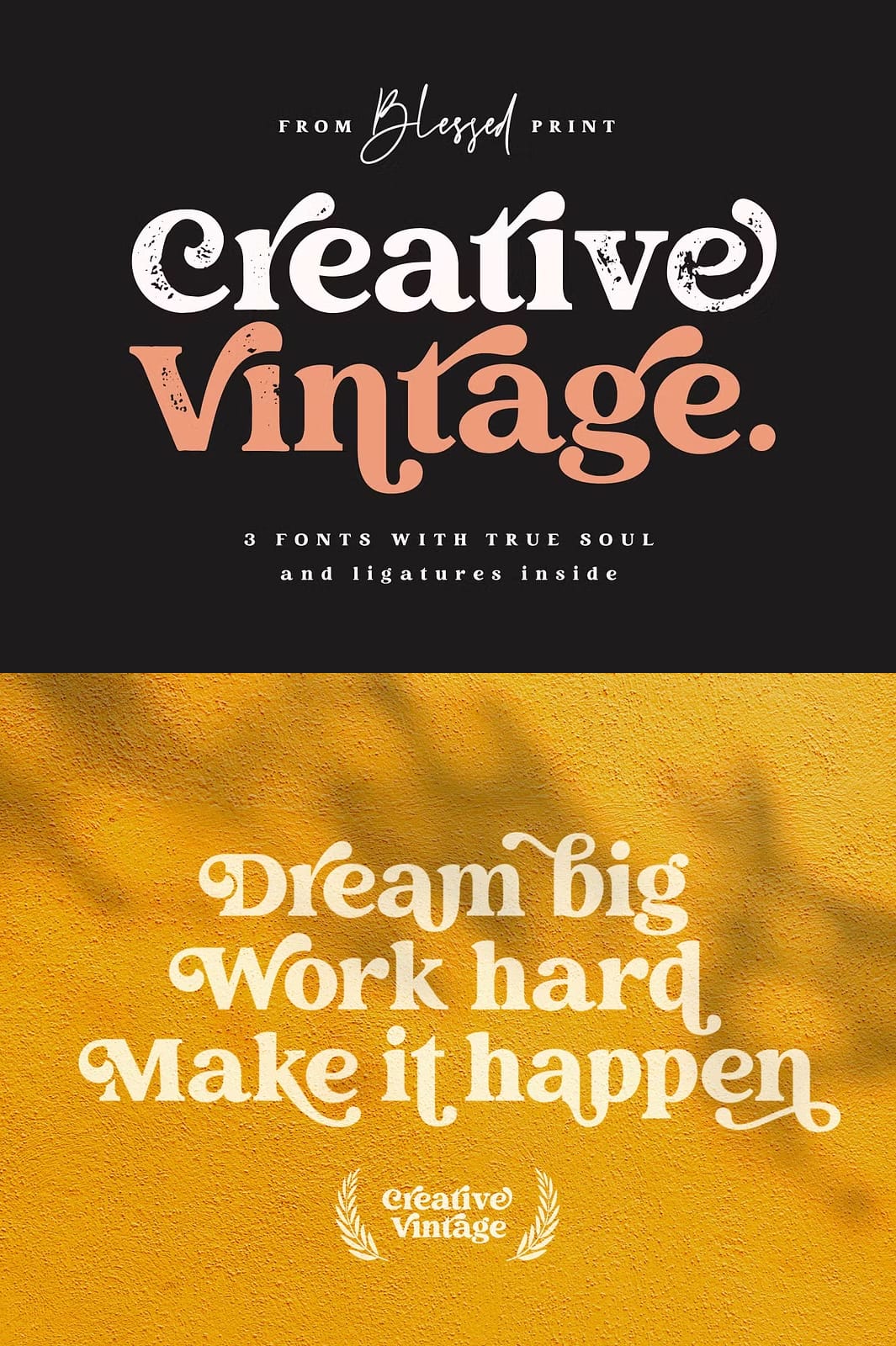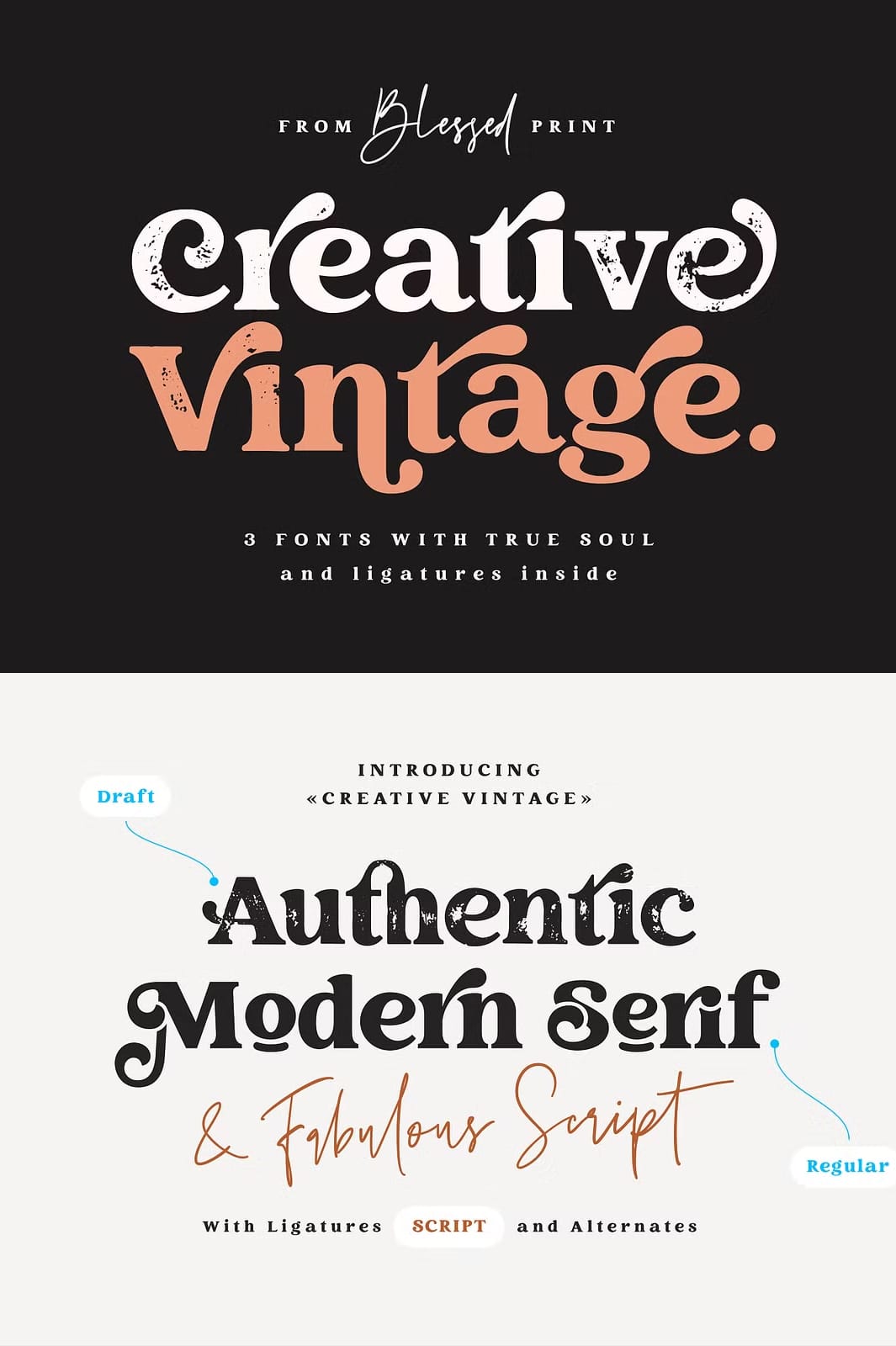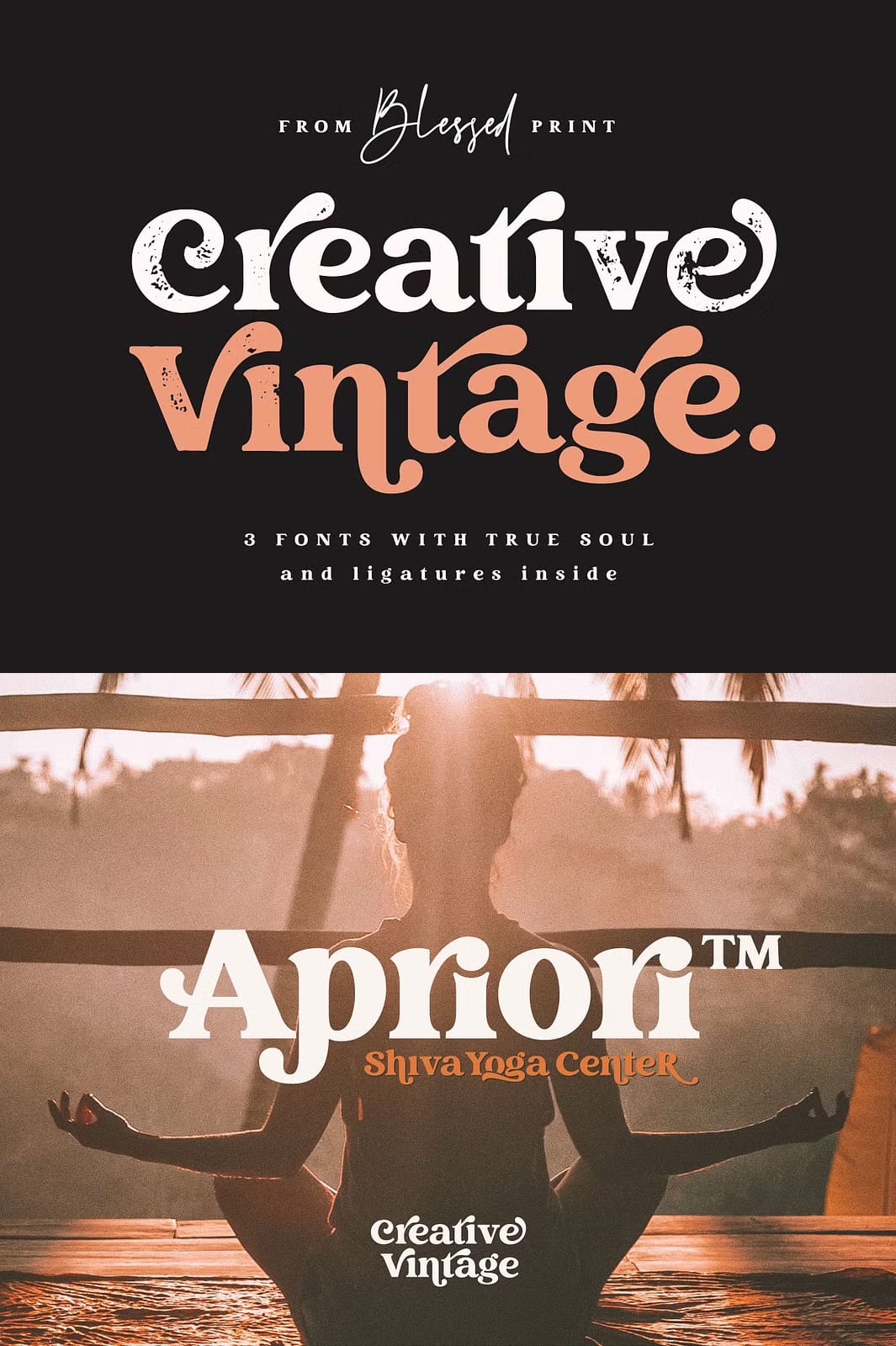
Creative Vintage Font Duo
Introducing Creative Vintage – A Stylish Typeface for Contemporary and Nostalgic Designs
Creative Vintage is a versatile modern serif typeface that combines vintage charm with a fashionable, retro-modern aesthetic. Designed to meet the needs of today’s creative professionals, this font duo offers a unique blend of clean shapes, precise kerning, and textured character that makes your designs stand out. Whether you are working on branding, invitations, social media graphics, or digital products, Creative Vintage delivers a sophisticated and stylish look that captures attention.
Three Perfectly Matched Fonts for Maximum Flexibility
The Creative Vintage package includes three complementary fonts, each designed to work seamlessly together and provide a wide range of stylistic options:
• Creative Vintage Regular: An OpenType serif font featuring clean shapes and precise kerning. It includes ligatures and alternates, with a total of 669 PUA-encoded glyphs, giving you extensive typographic control.
• Creative Vintage Draft: A modern serif font with chunky, imperfect edges and a shabby, textured look. This font is a faithful copy of the regular version in terms of glyph names, kerning, and ligatures, allowing you to switch styles effortlessly. Alternates appear automatically when you type a plus sign (+) after any letter or ligature.
• Fabulous Font: A modern calligraphy font with a straight appearance, available in three weights: thin, normal, and bold. It includes all glyphs, ligatures, and alternates PUA-coded, with elegant integrated slashes. OpenType features enable you to create long lines by entering numbers after each letter or enclosing text in square brackets [ ].
Powerful OpenType Features for Efficient Workflow
Creative Vintage is designed to speed up your workflow with built-in OpenType features. Simply insert a plus sign (+) after any letter to access instant alternates, a function supported by most applications including Templett and Corjl. This intuitive feature allows you to customize your typography quickly and creatively without interrupting your design process.
Why Choose Creative Vintage?